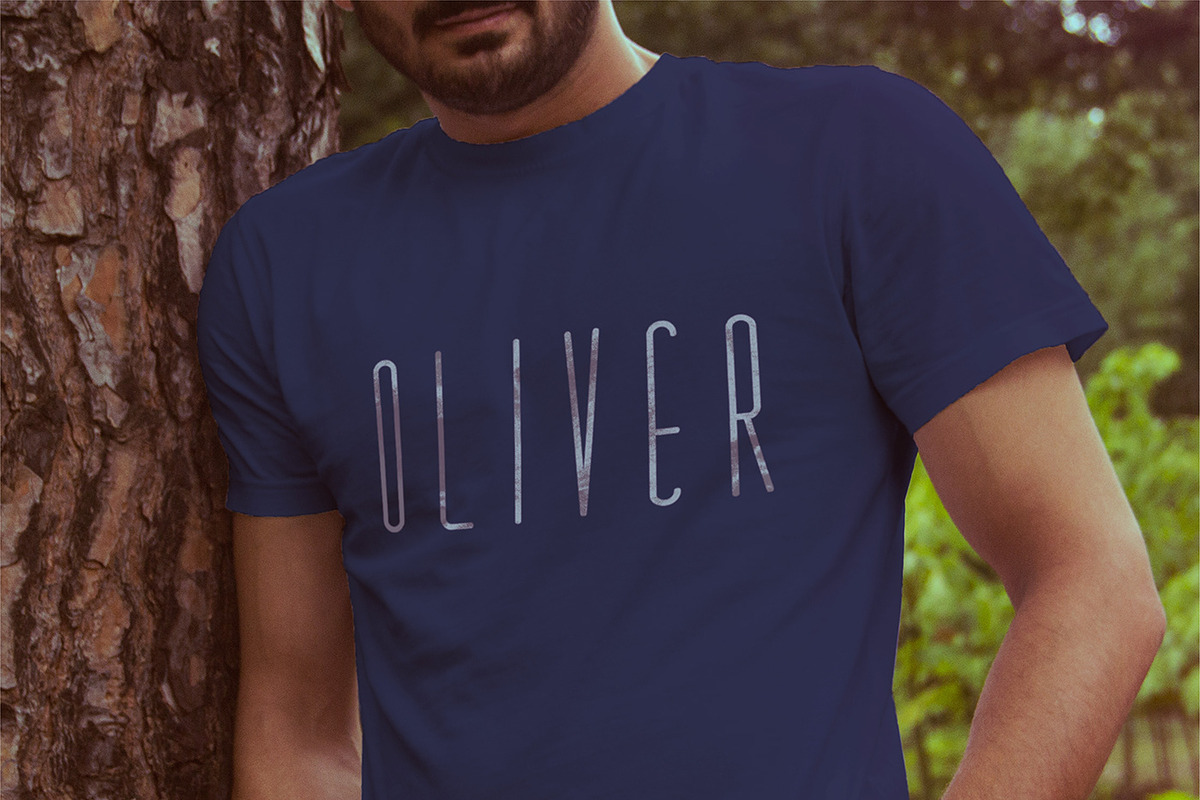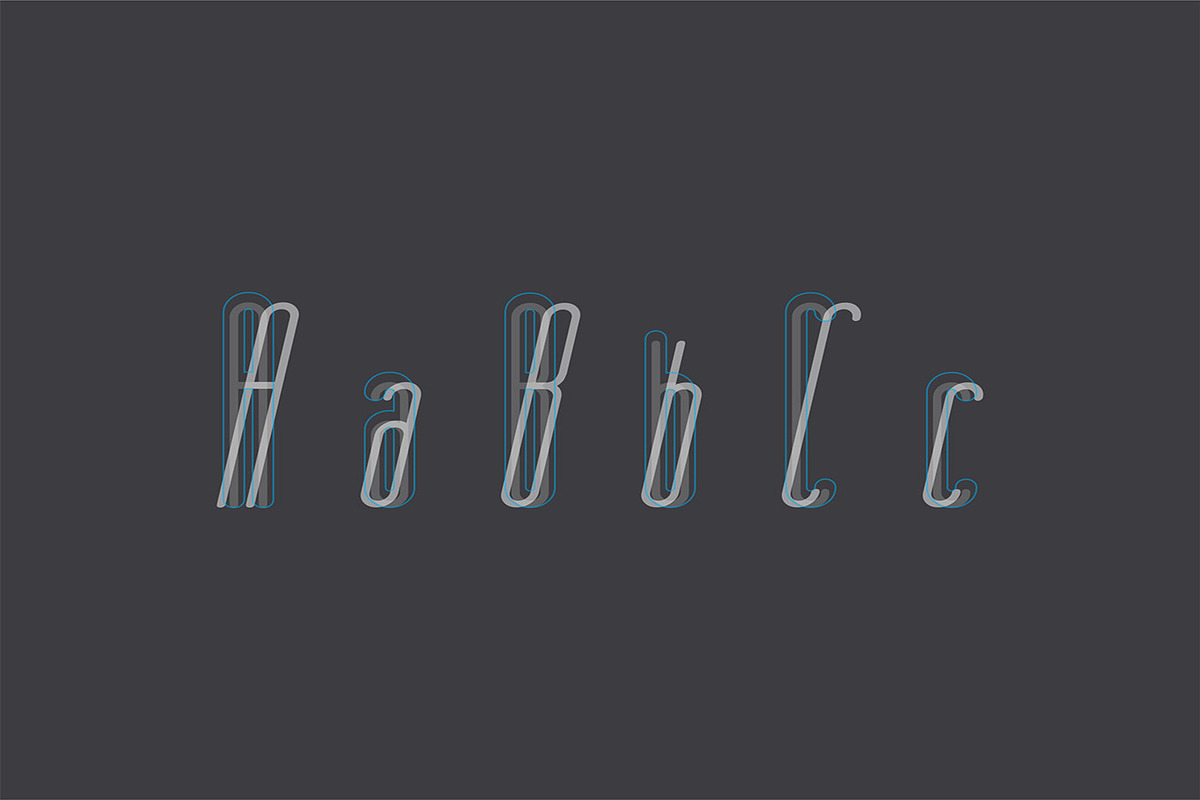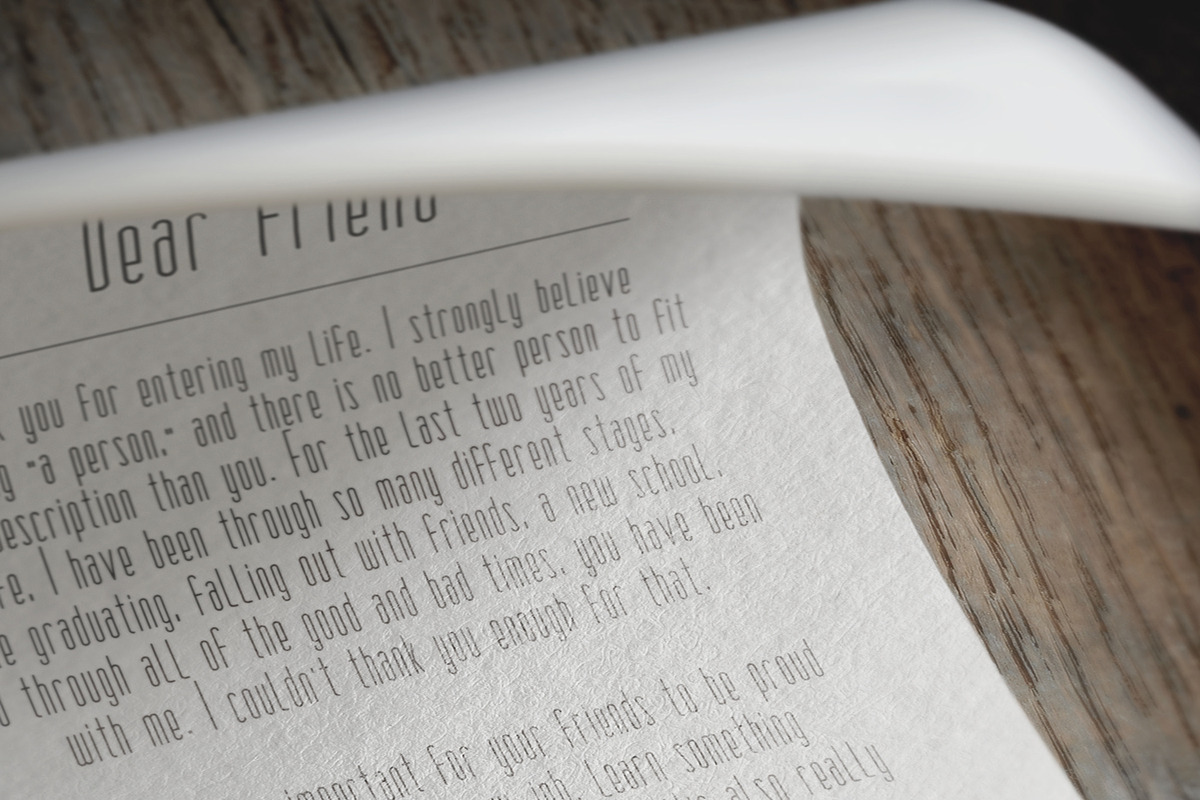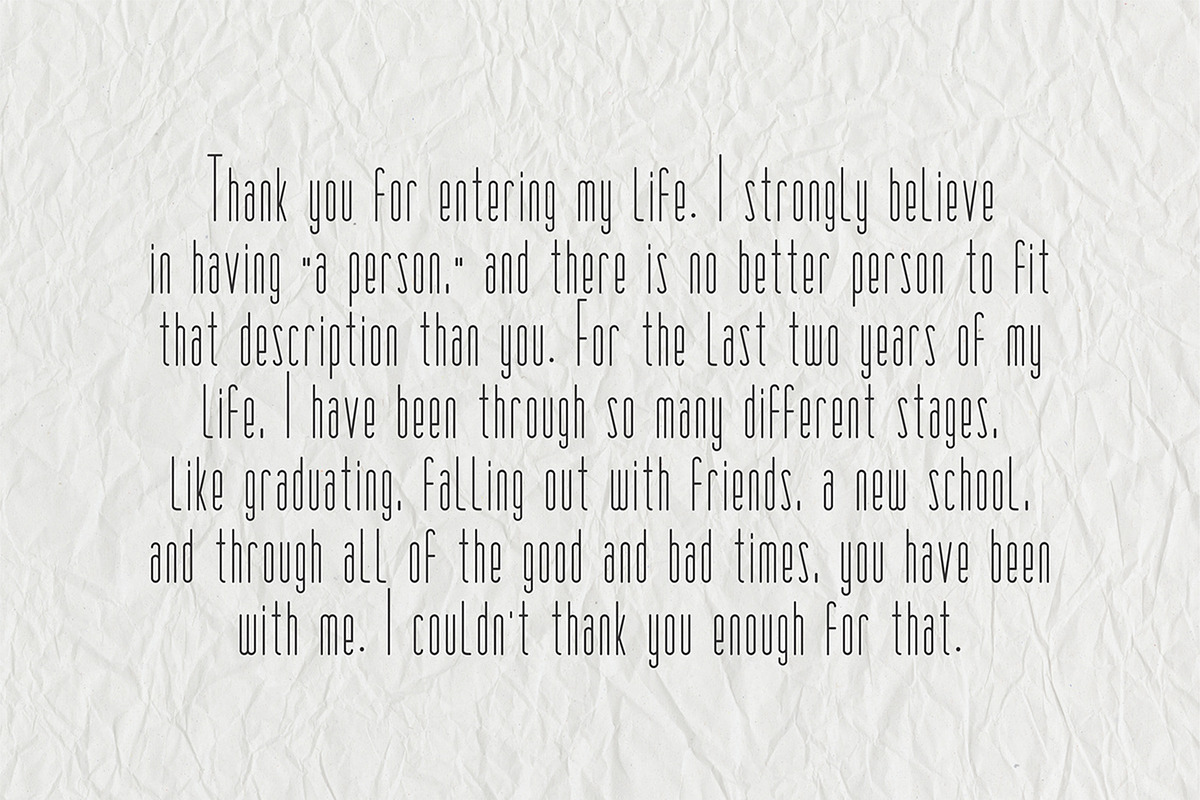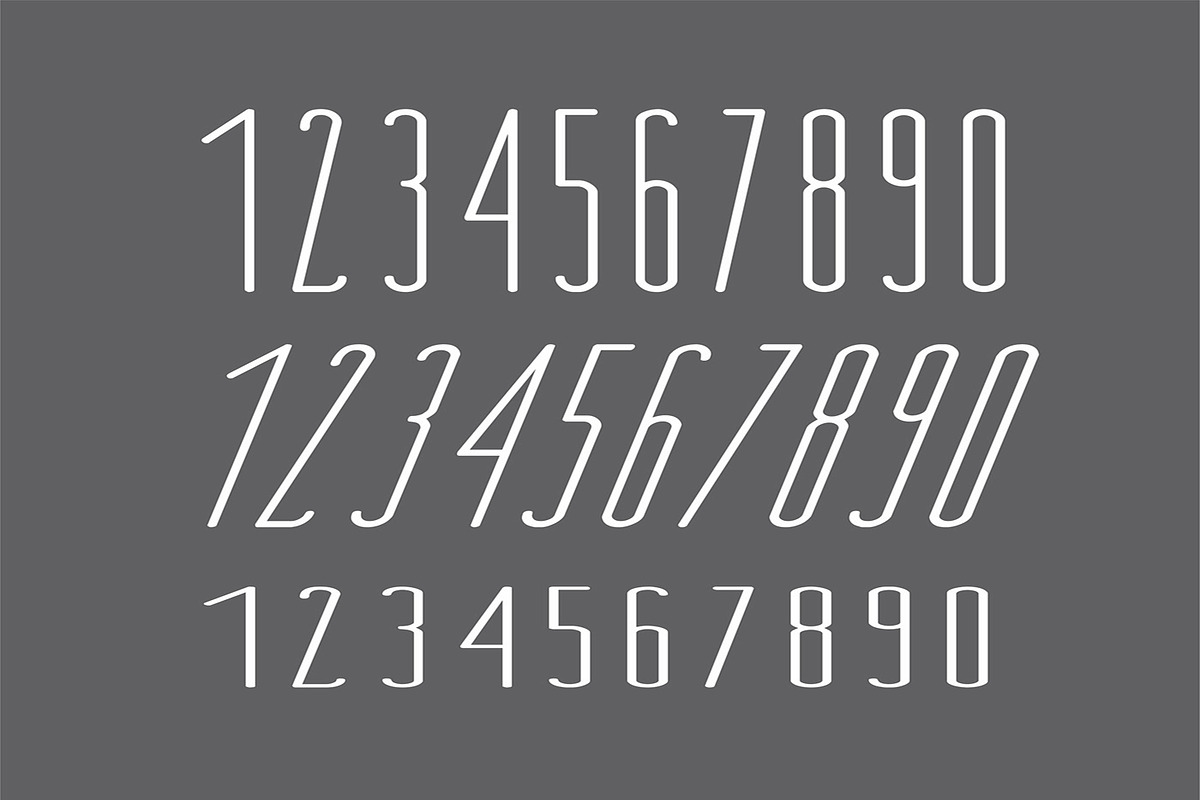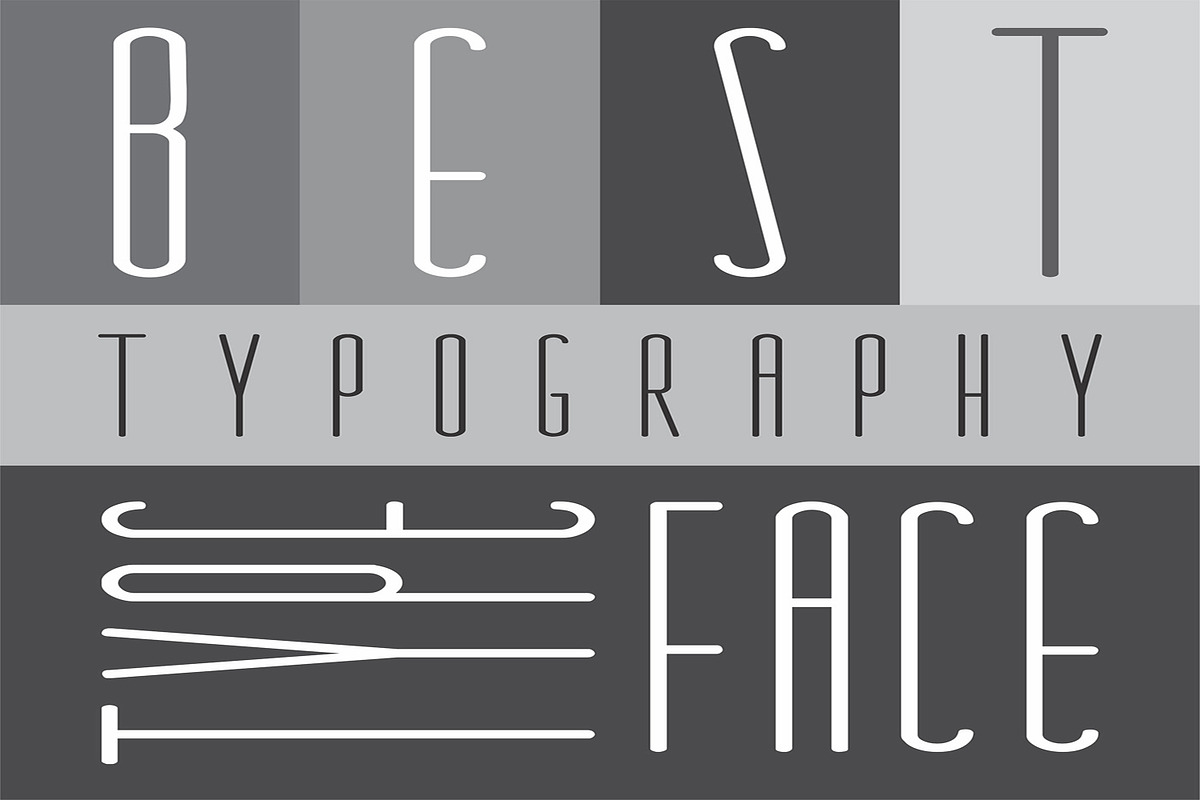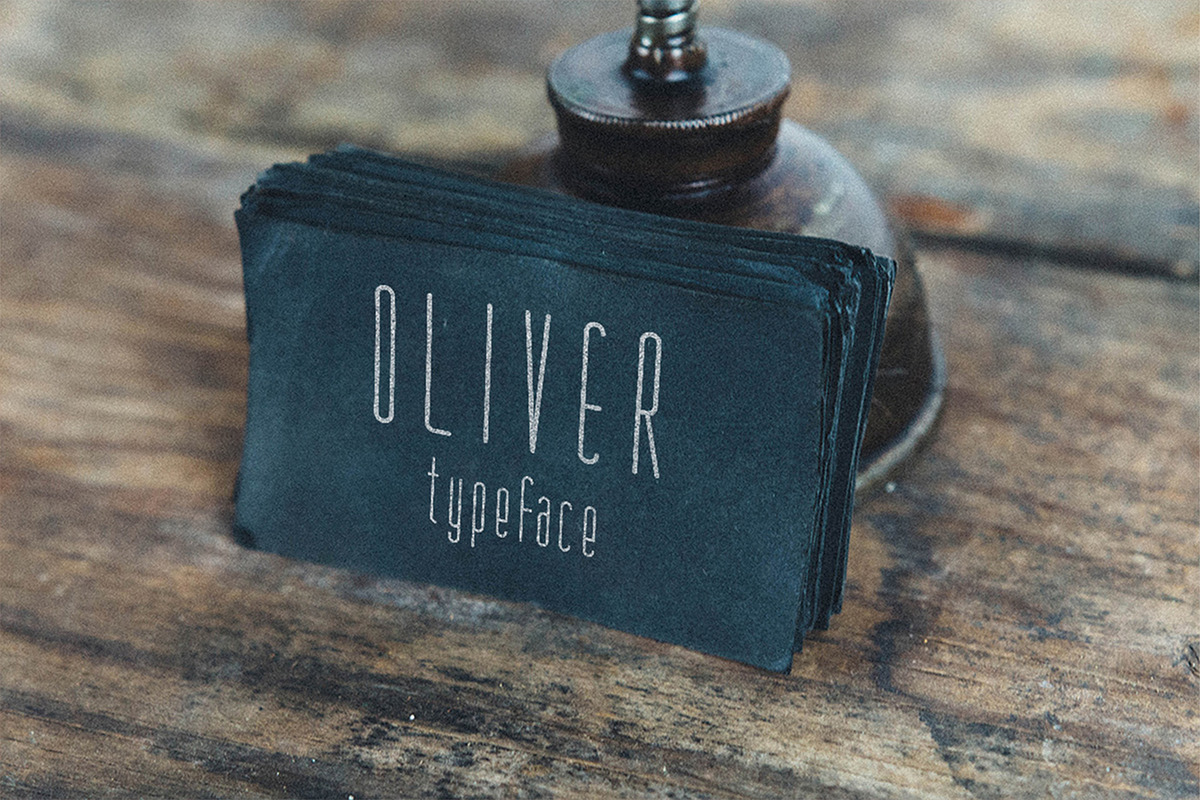
Oliver - modern font - three version
Oliver font is applicable for many occasions in design. Multiple works with contemporary design or many pages of heading-full brochure advert are also applicable for use. Created by the professional group of skilled designers this font may fit in mostly ever idea the creator or digital painter can imagine.
It has neatly oriented and smoothly aligned its own unique style. Consisting of basic English alphabet letters uppercase characters as well as lowercase characters this font have all changes to be default usage font. As visible from preview image this version includes not only the numbers (0-9) also it has multiple stylised and aligned punctuation characters. Generally speaking the number of punctuation characters are much more than preview image. It concise and precious design is like its identity. This edition has many characters inside (list below):